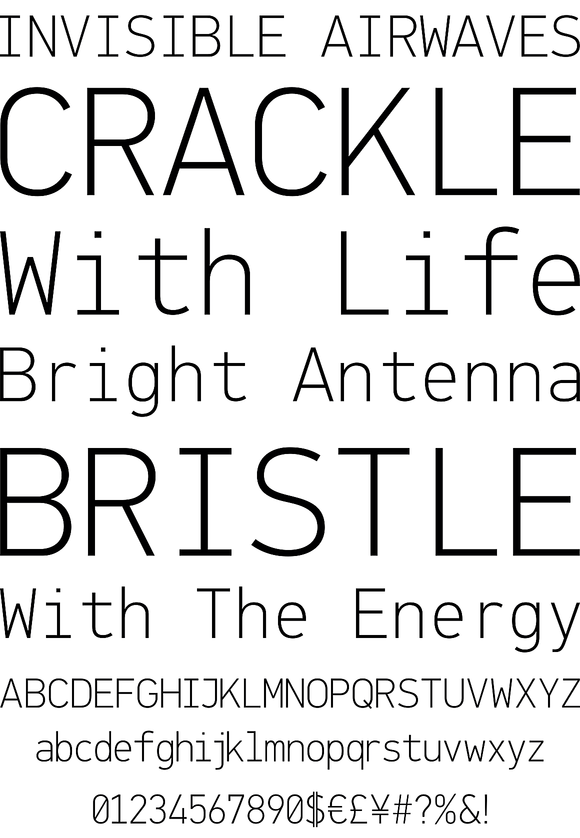
PF DIN Monospace PF DIN Monospace
PF Din Mono is the latest addition to the ever-growing set of DIN superfamilies by Parachute. It was based on its proportional counterpart DIN Text Pro but was completely redesigned to reflect its new identity. DIN Mono is a monospace typeface which is comprised of characters with fixed width. Traditionally, monospaced fonts have been used to create forms, tables and documents that require exact text line lengths and precise character alignment. Din Mono, on the other hand, can prove to be more than a useful typeface for technical applications. In the world of proportionality, Din Mono stands out as a fresh new alternative to the popular standard, particularly for publishing and branding applications. Additional care was given to the aesthetic form and its pleasing characteristics. The spacing attributes of the glyphs were redefined and legibility was further improved by revising or changing the shape of the letterforms. Furthermore, kerning was not included in order to preserve the monospace nature of this typeface. The family consists of 12 weights including true-italics. Currently, it supports Latin, Eastern European and Baltic.